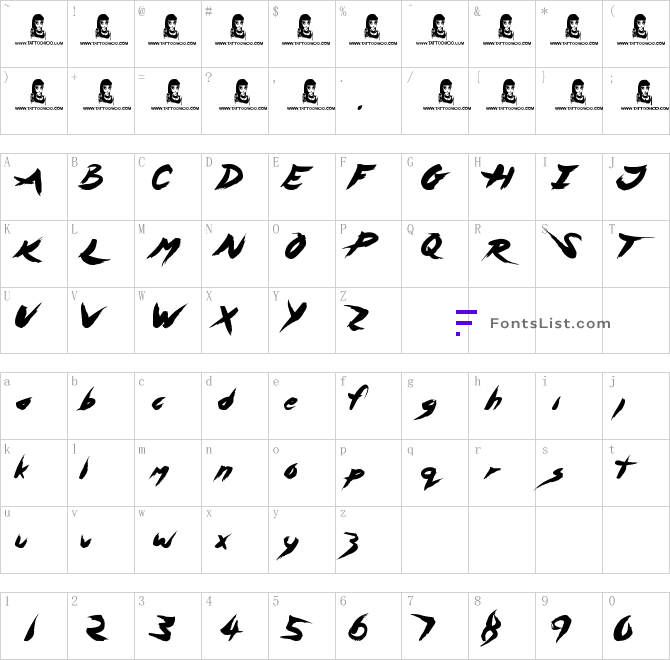
- Font Name:Asylum Mansion
Asylum-Mansion.otf is a very beautiful artistic font, Asylum-Mansion.otf is widely used in the design and printing of various books and pictures,Asylum-Mansion.otf has a strong visual impact,Asylum-Mansion.otf is a commonly used font in newspapers, magazines and books, and is used in posters, e-commerce Poster design, store design, logo design, font design and other fields.Asylum-Mansion.